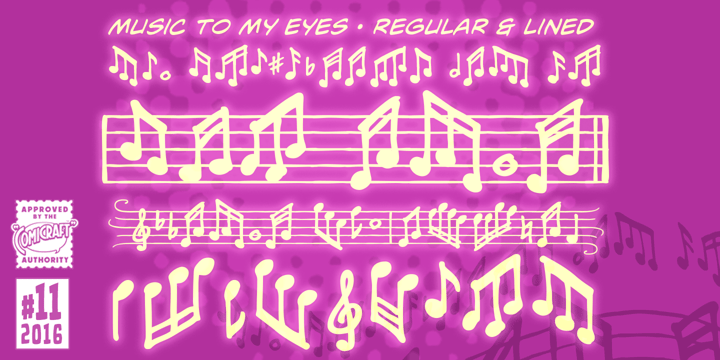
Music To My Eyes
by Comicraft
This singsong font is Chock Full o’Notes to help semibreviate your lettering with melodic minims, quarter notes and quavers! NOTE, however that we cannot take responsibility for any arrangement that my seem out of tune to the trained eye.
Designers: Richard Starkings, John Roshell
Foundry: Comicraft
Original Foundry: Comicraft
Music To My Eyes